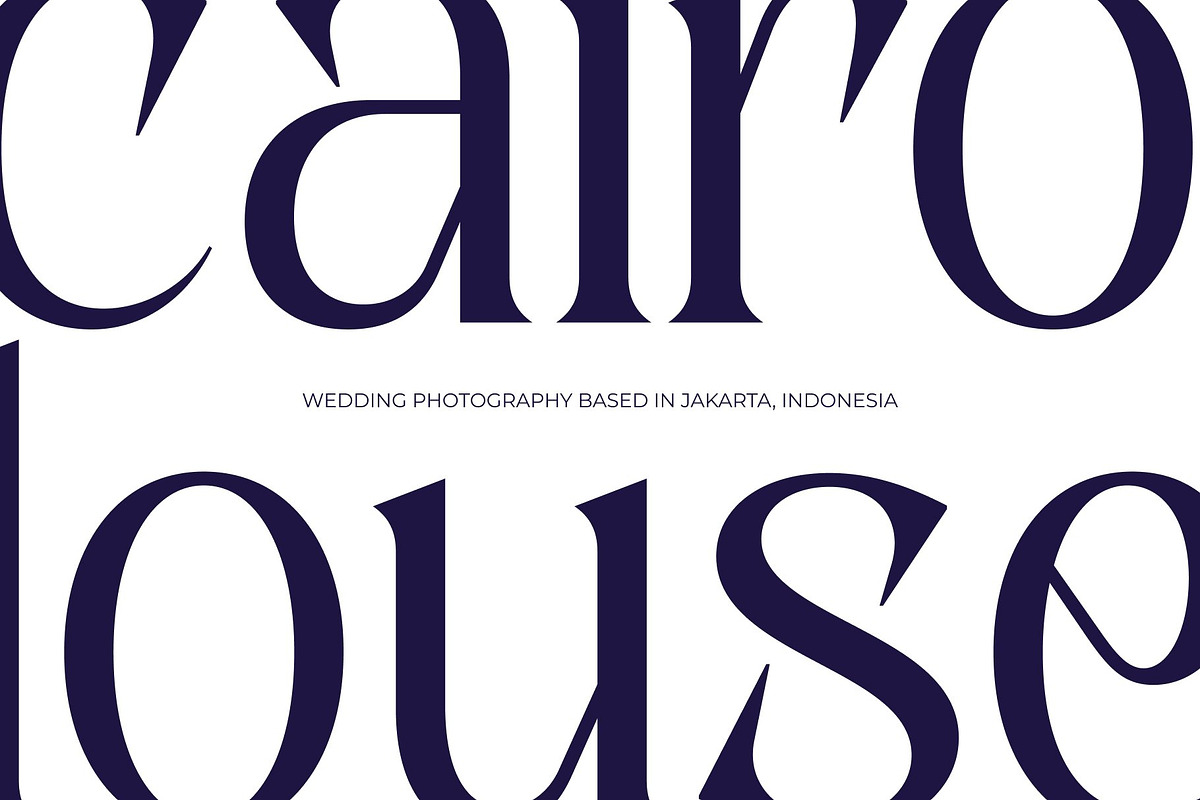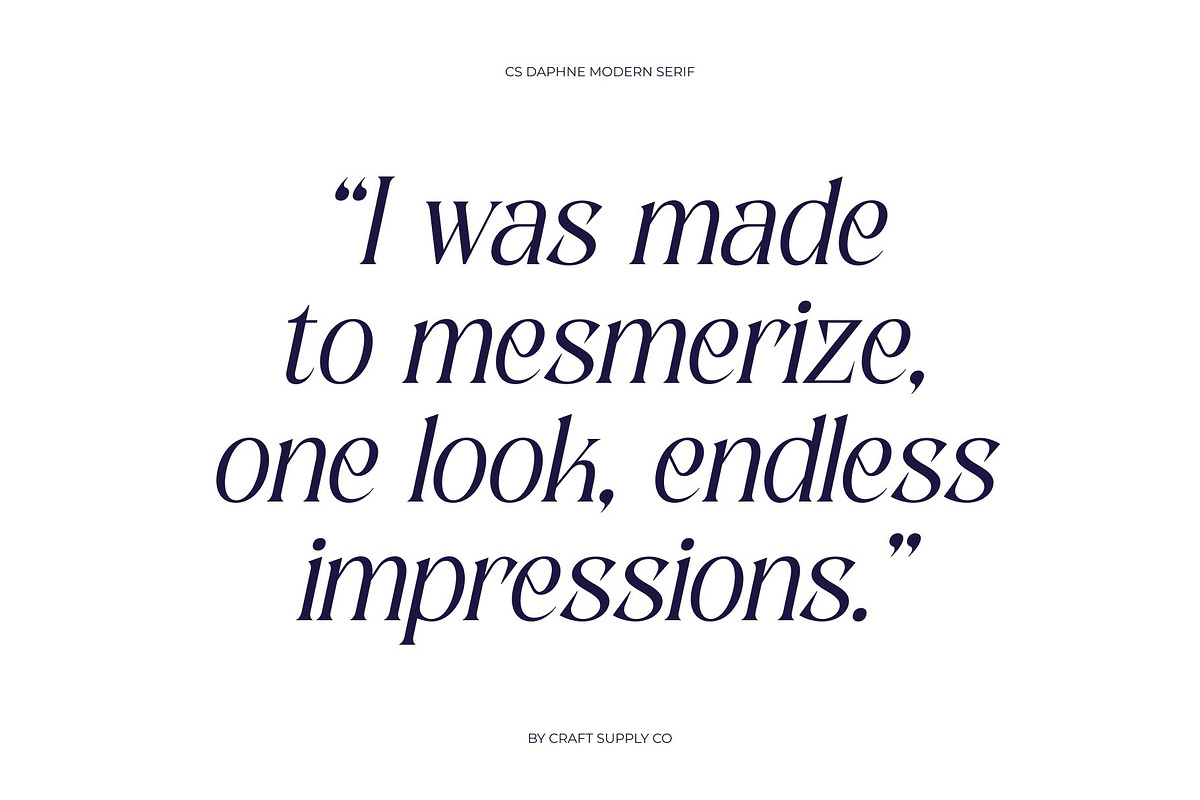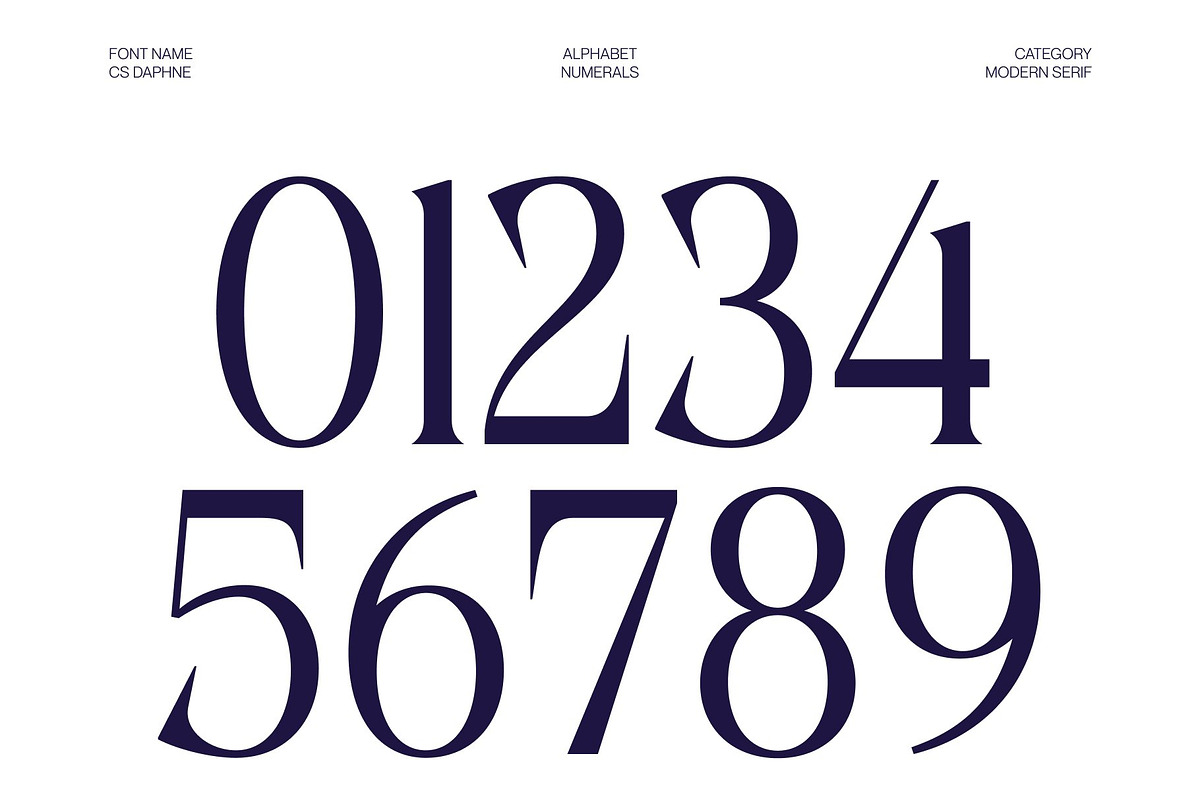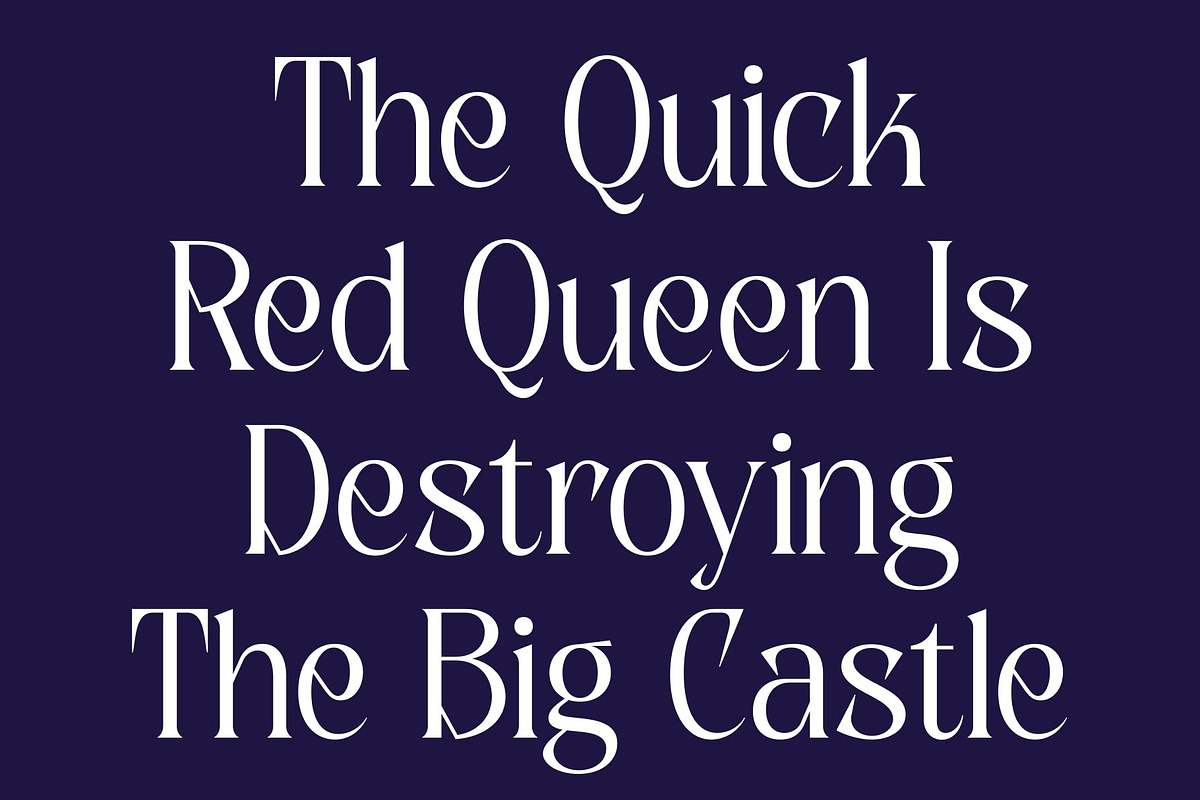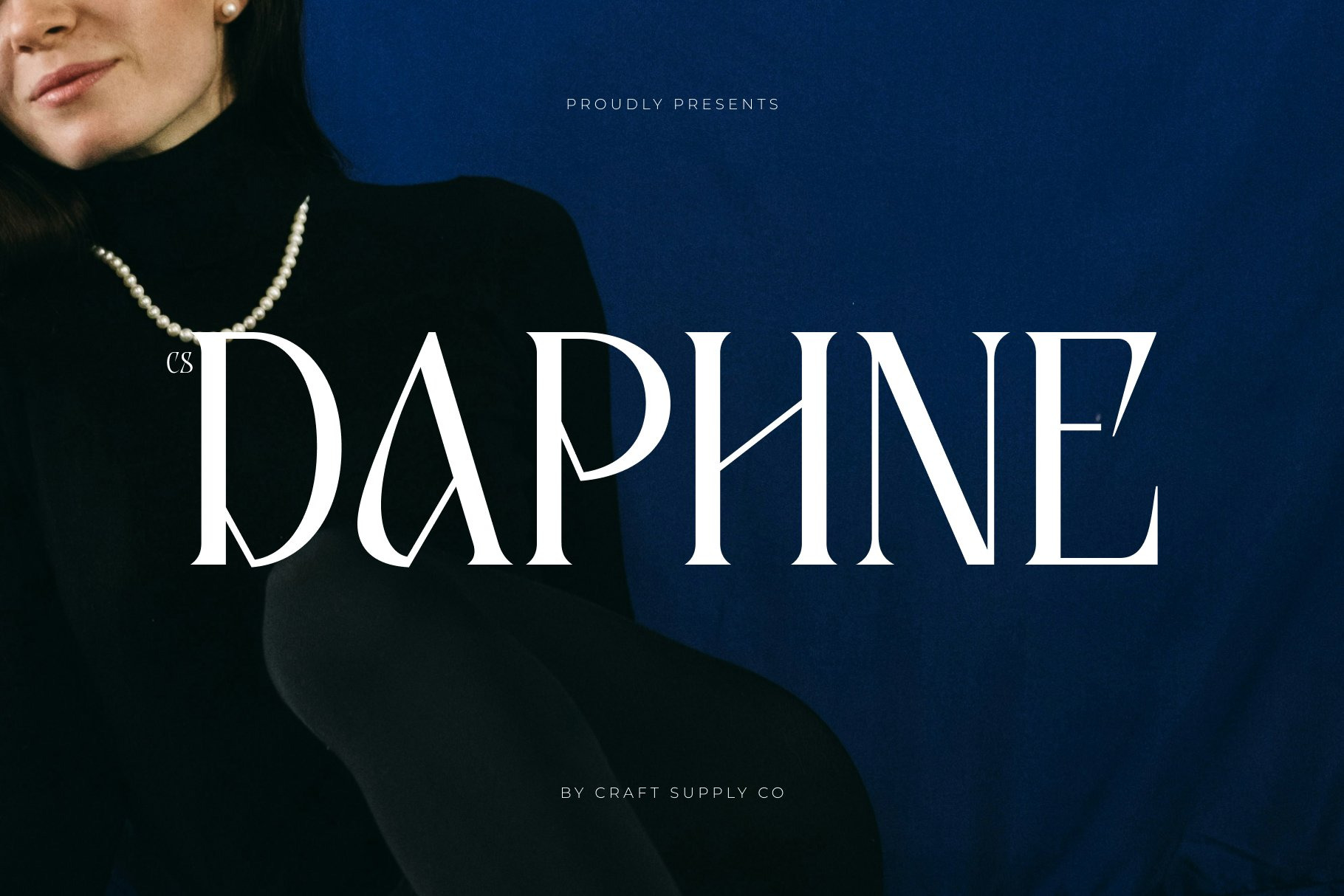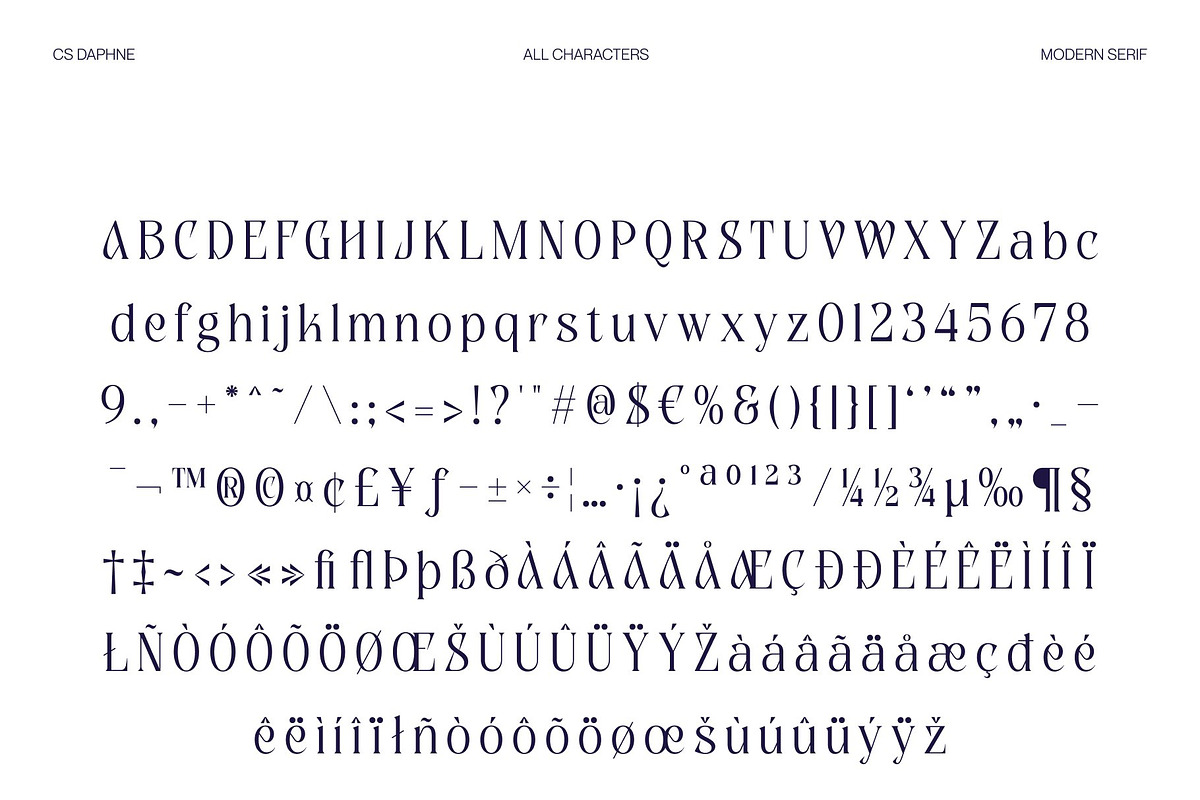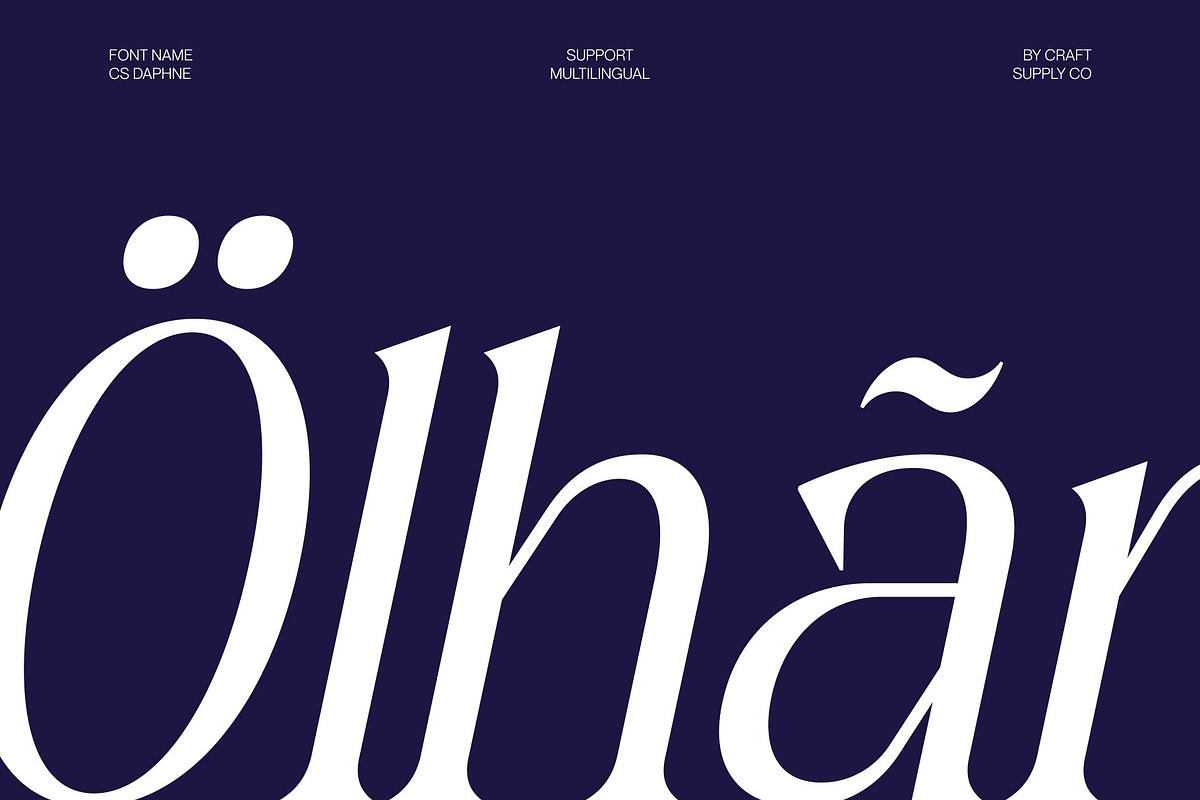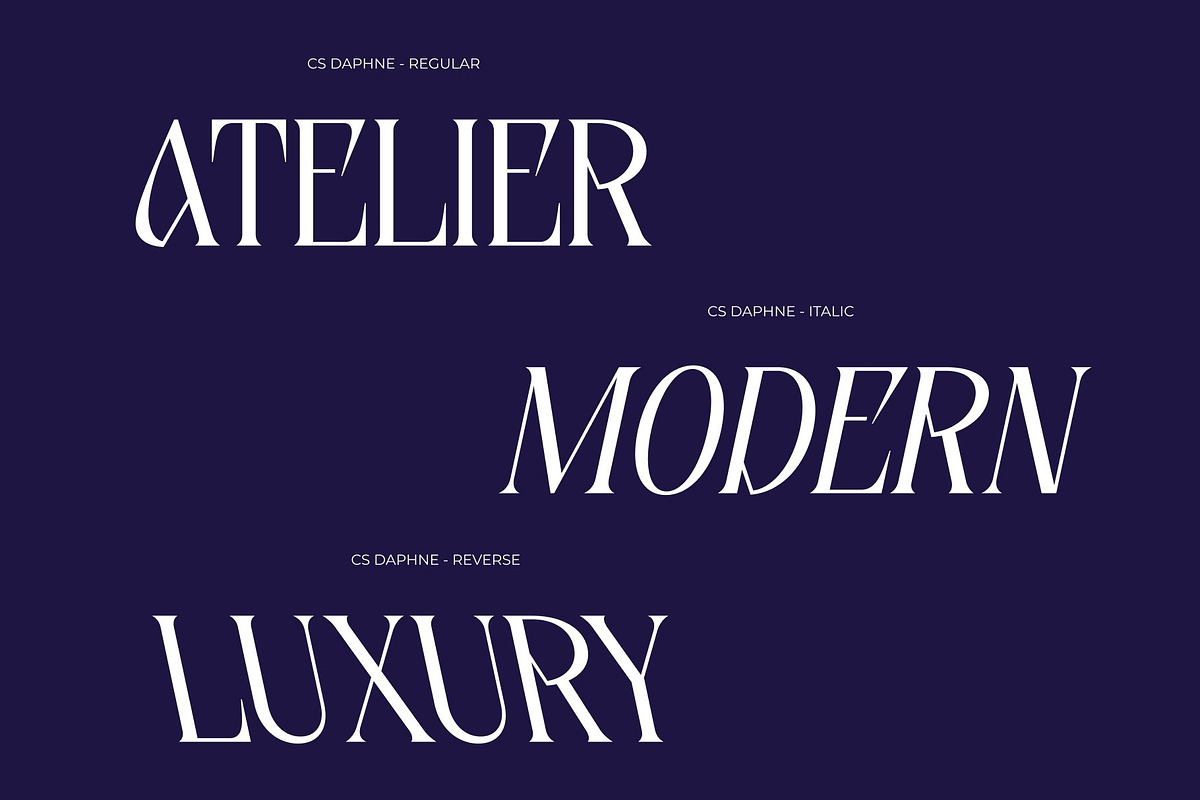
CS Daphne – Contemporary Font
CS Daphne – Modern Serif with Fresh Contemporary Style
Modern Serif with Cool Contemporary Character This is a modern serif font designed to blend timeless elegance with a fresh contemporary attitude. Featuring refined proportions and clean modern details, this typeface creates a stylish visual presence that feels sophisticated, cool, and highly versatile. It is crafted for designers who want typography that appears elegant while maintaining a modern and creative edge.
Refined Shapes with Fresh Appeal The letterforms of this font are carefully designed to balance classic serif beauty with contemporary simplicity. Smooth curves and clean structure create a harmonious rhythm that enhances readability while giving the font a polished and modern appearance. This refined construction allows the typeface to feel both fashionable and approachable.
Contemporary Elegance with Creative Energy This font carries a cool and confident personality that adapts effortlessly across modern design styles. Its subtle sophistication adds depth and elegance to compositions without feeling overly formal, making it ideal for projects that require both creativity and professionalism.
Perfect for Editorials, Branding, and Fashion Design From editorial layouts and luxury branding to fashion campaigns and creative projects, this font offers a versatile typographic solution. Its combination of fresh contemporary style, refined elegance, and modern clarity ensures your designs feel stylish, engaging, and visually memorable.
CS Daphne Regular
CS Daphne Italic
CS Daphne Reverse Italic